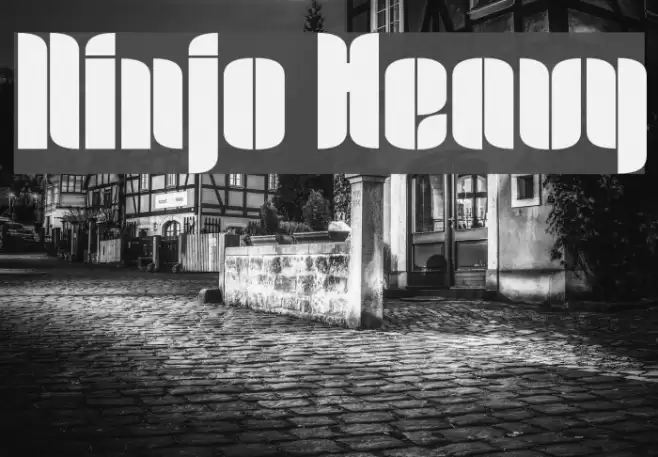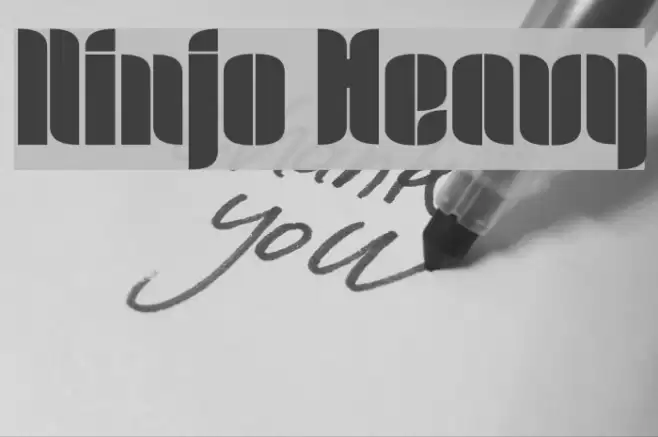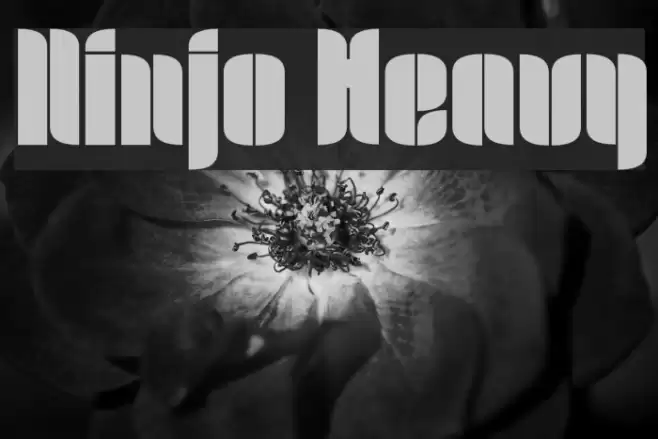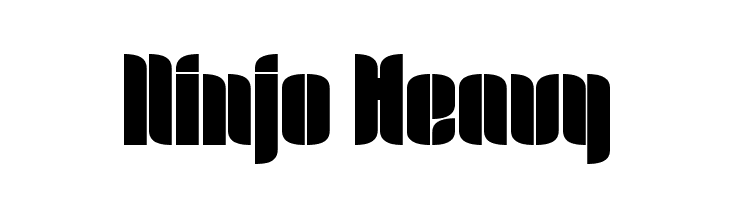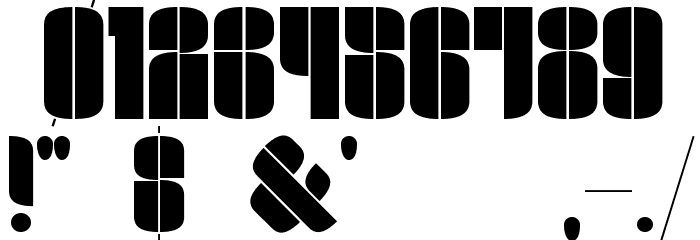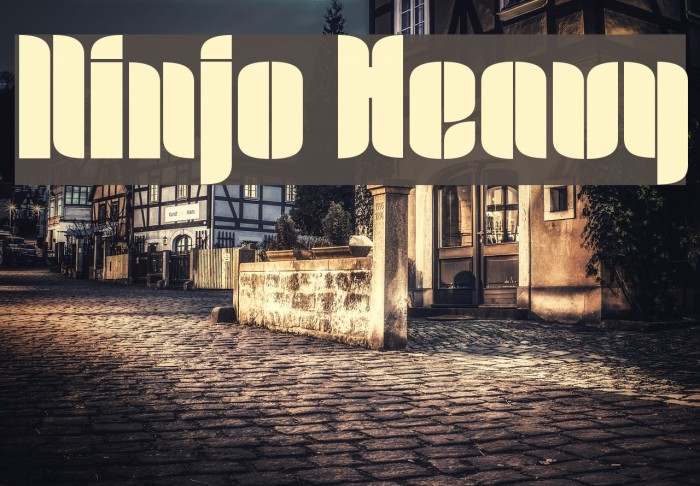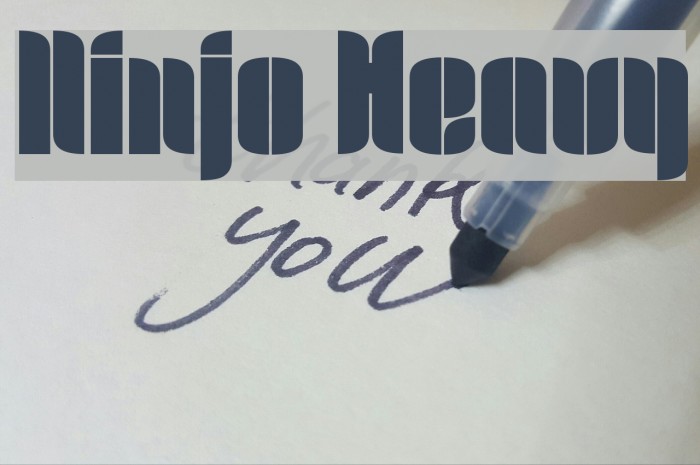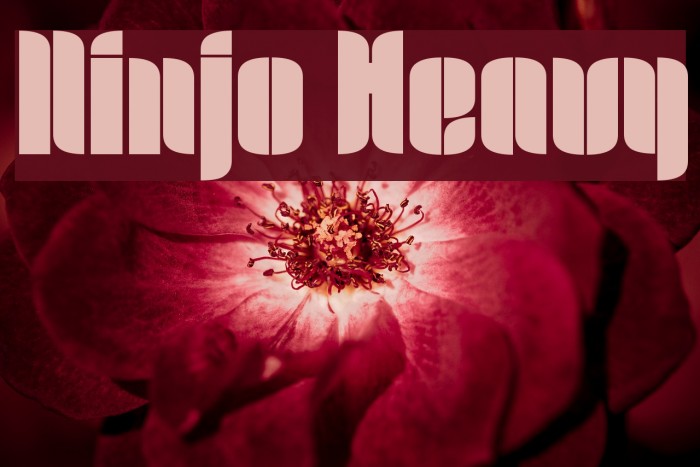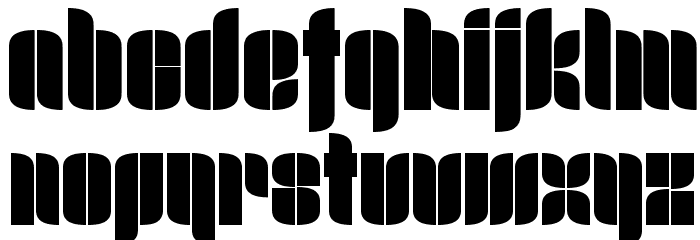
Ninjo Heavy Font
Ninjo Heavy Description
This font is a bold, heavy typeface with a distinctive geometric style. The characters are constructed with thick, block-like shapes that create a strong visual impact. The uppercase and lowercase letters maintain a consistent width, contributing to a uniform appearance. The numbers and special characters follow the same design principles, ensuring cohesion across all elements. The font's boldness and unique structure make it suitable for attention-grabbing designs. Its modern aesthetic is ideal for projects that require a strong, contemporary look.
A bold, geometric typeface with a modern, impactful style from Uncategorized fonts.
- Proposed Projects: Ideal for posters, logos, branding, and headlines that require a strong visual presence.